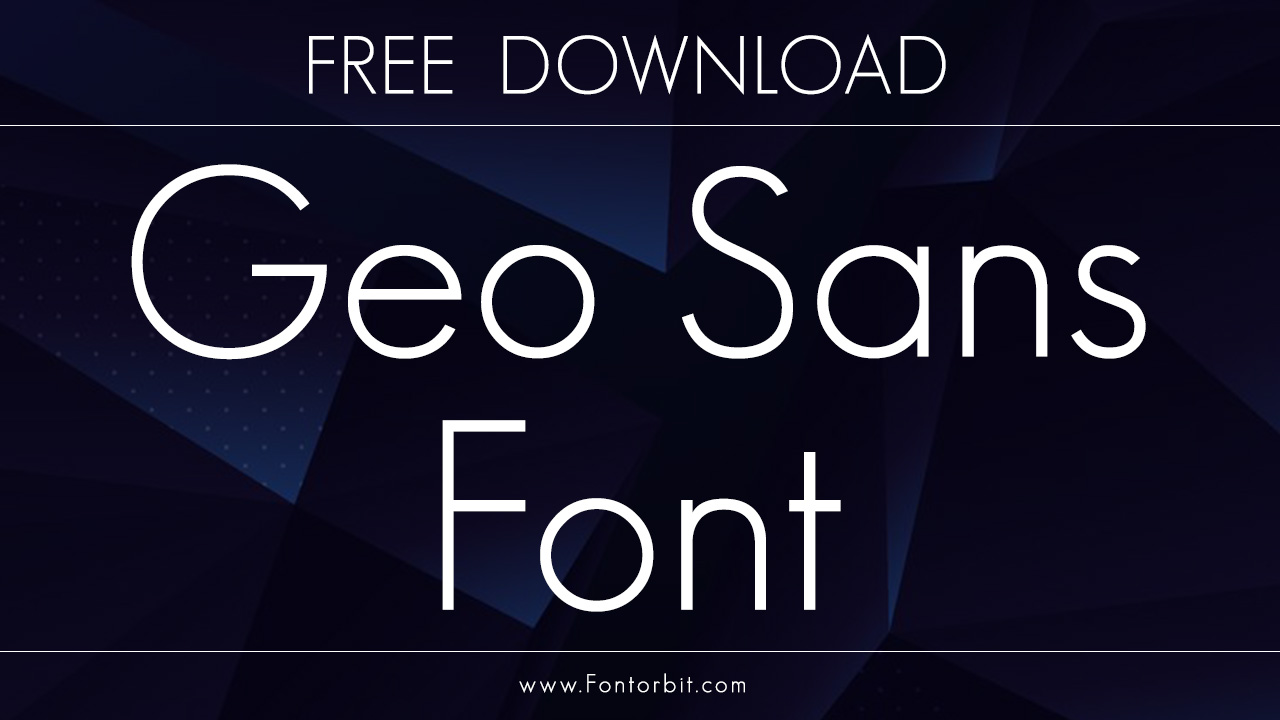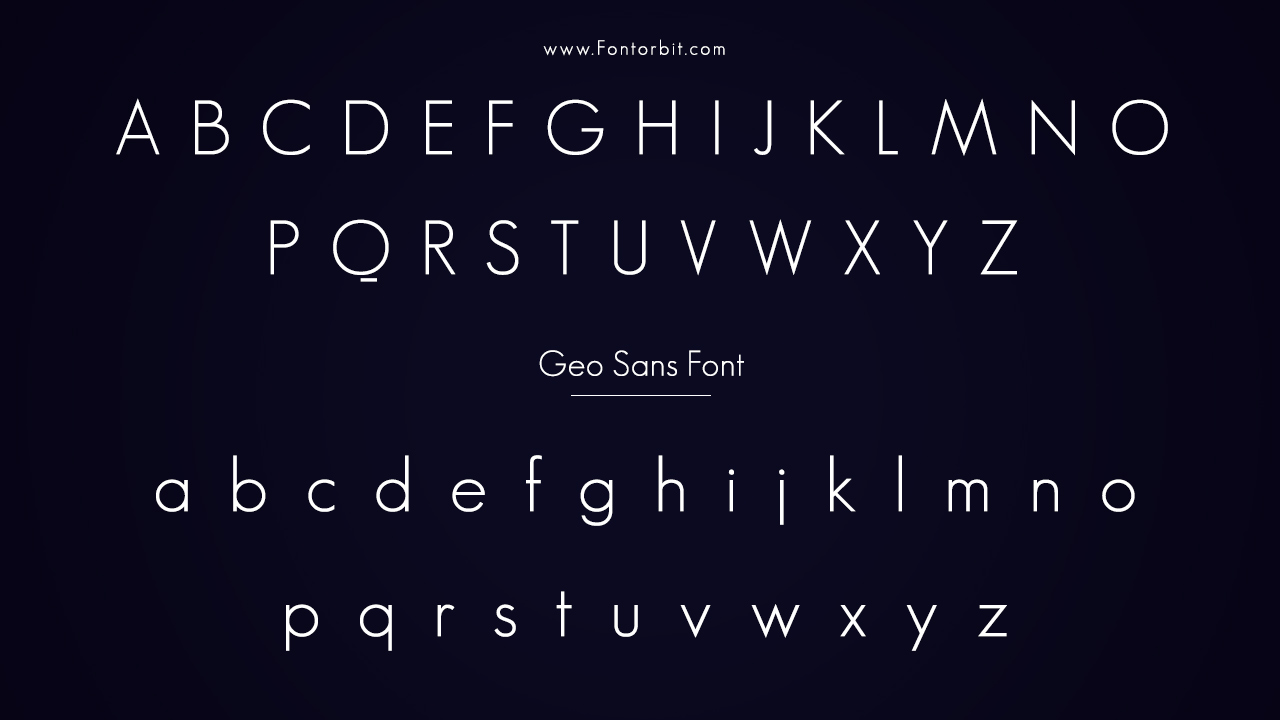
Geo Sans Light is a sleek sans-serif font designed by Manfred Klein, originally released in 2003. This minimalist geometric font emphasizes legibility and elegance, making it a versatile choice for various projects. It’s part of the basic and geometric sans-serif family, offering clean, unobtrusive designs.
Geo Sans Light Family Includes
The Geo Sans Light family features two primary styles:
- Geo Sans Light Regular
- Geo Sans Light Oblique
Both styles support basic Latin characters with around 230–235 glyphs, making them suitable for general design use.
Notable Uses Of Geo Sans Light
Geo Sans Light’s clean, modern look is ideal for branding, logos, and web design. Its professional and simple style has been favored in minimalist corporate presentations and user interfaces, making it especially useful in settings that require clarity and neutrality.
Geo Sans Light works best in contexts where a clean, professional look is required. It’s ideal for:
- Emblem designs
- Website templates
- Thumbnail designs
- Elegant designs
- Vintage gift cards
- Intriguing logos
Geo Sans Light offers a harmonious balance of form and function, designed to cater to both professional and creative needs. Its simple geometric shapes make it perfect for minimalistic and elegant design projects, giving your content a modern and timeless appeal.
2.How Many Styles Does Geo Sans Light Have?
Geo Sans Light is typically a single-style font, though additional variations may be available depending on the source.
3.Is This Font Suitable For UI/UX Design?
Yes, Geo Sans Light is suitable for UI/UX design, particularly for creating clean and modern interfaces with a minimalist aesthetic.
5.What Type Of Projects Suit Geo Sans Light Best?
Geo Sans Light works best in projects that require a modern, sleek look, such as tech branding, app interfaces, and minimalist websites.
6.Is Geo Sans Light Part Of A Larger Font Family?
No, Geo Sans Light is typically a standalone font and is not part of a larger family with extensive weight or style options.